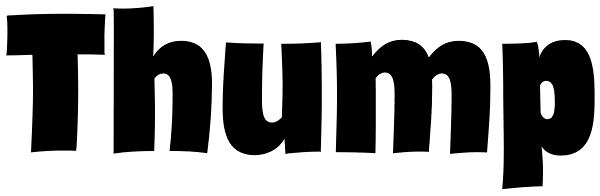
Thump
Thump is a fat, casual, sans-serif headliner. Thump is so casual, it makes a brown, boring sweater look like a crazy LSD soaked super rainbow sport jacket with fire shooting out of it.